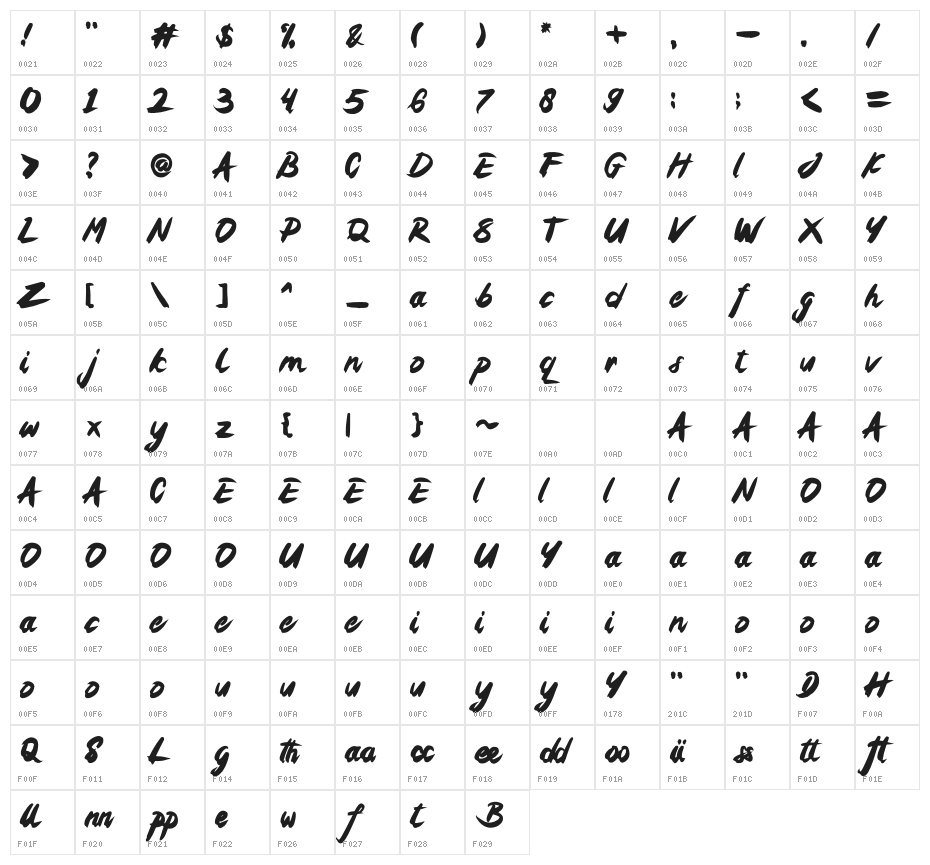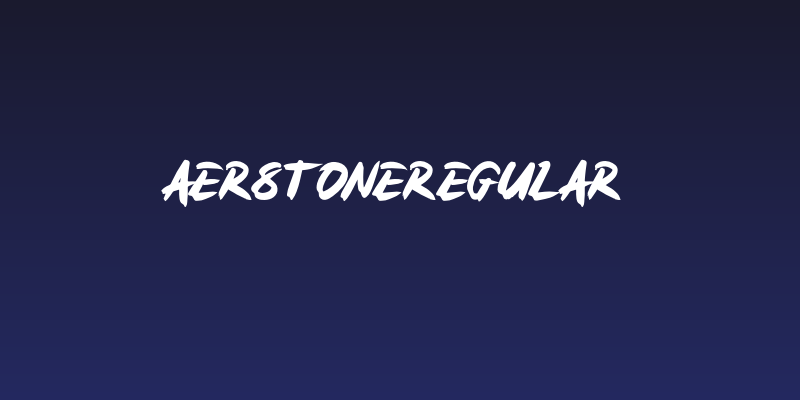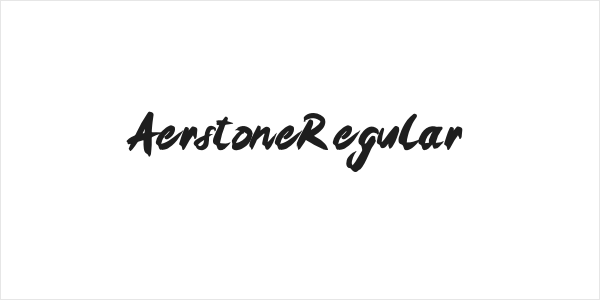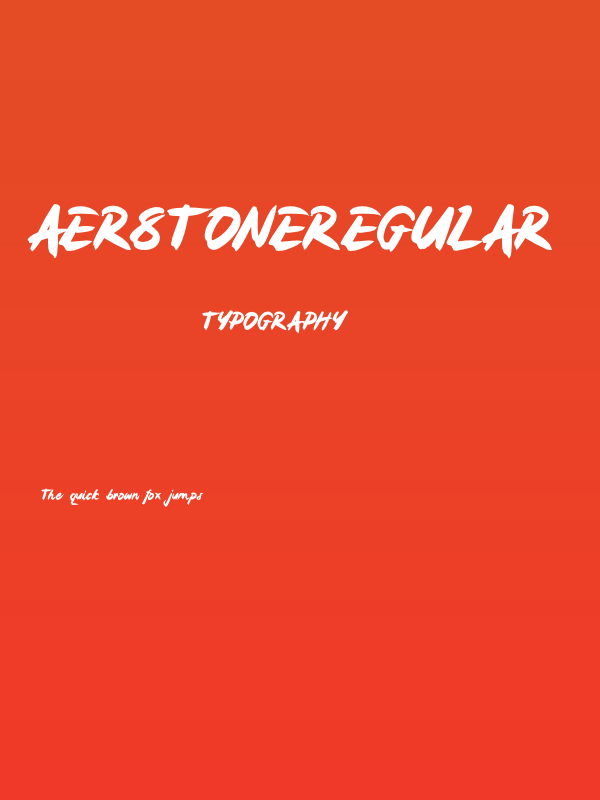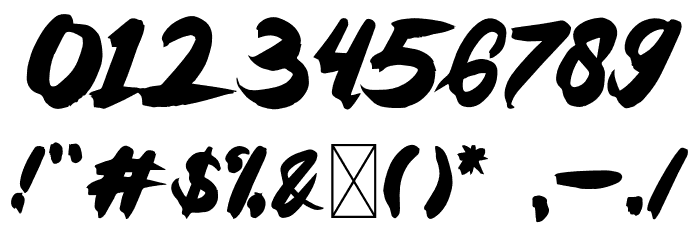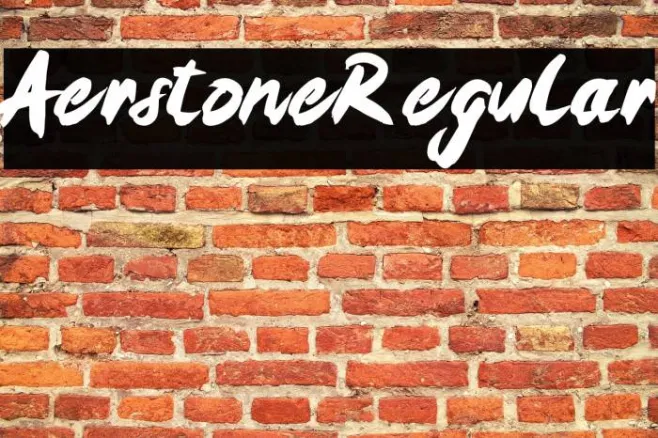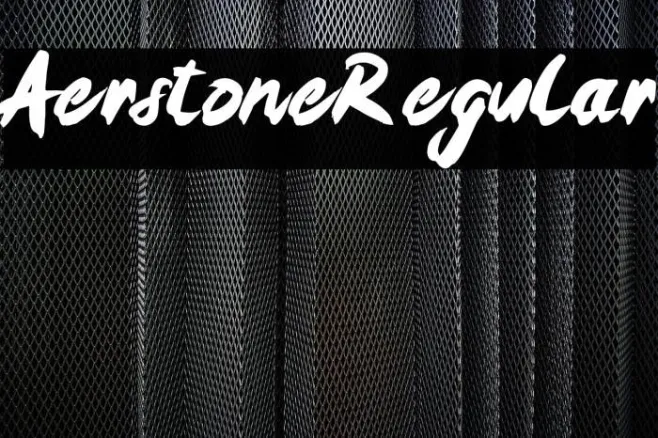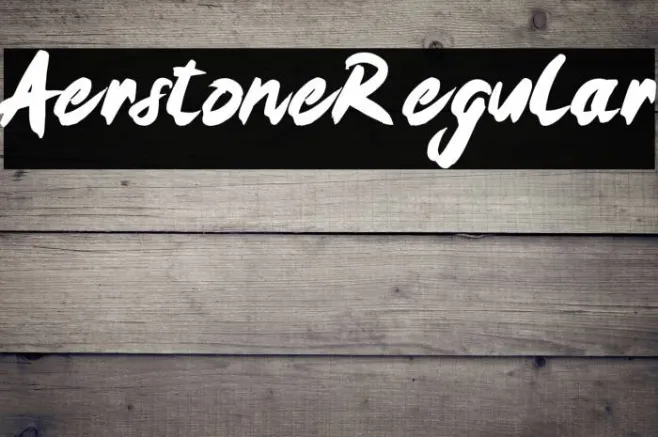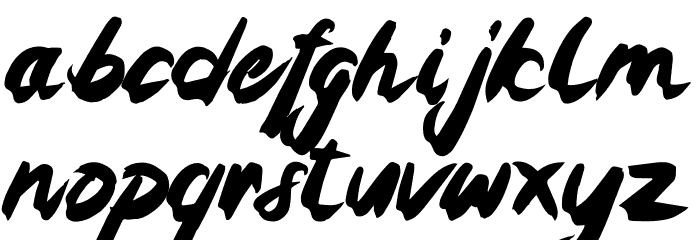
AerstoneRegular Font
AerstoneRegular Description
This font features a bold and dynamic script style, characterized by thick, sweeping strokes that convey a sense of energy and movement. The uppercase letters are particularly striking, with their dramatic curves and strong presence. The lowercase letters maintain the same fluidity, offering a cohesive look across the alphabet. Numbers and special characters are equally bold, ensuring consistency throughout. The overall appearance is both artistic and impactful, making it suitable for designs that require a strong visual statement.
| Proposed Projects | Ideal for branding, logos, posters, and any project that requires a bold and artistic touch. |